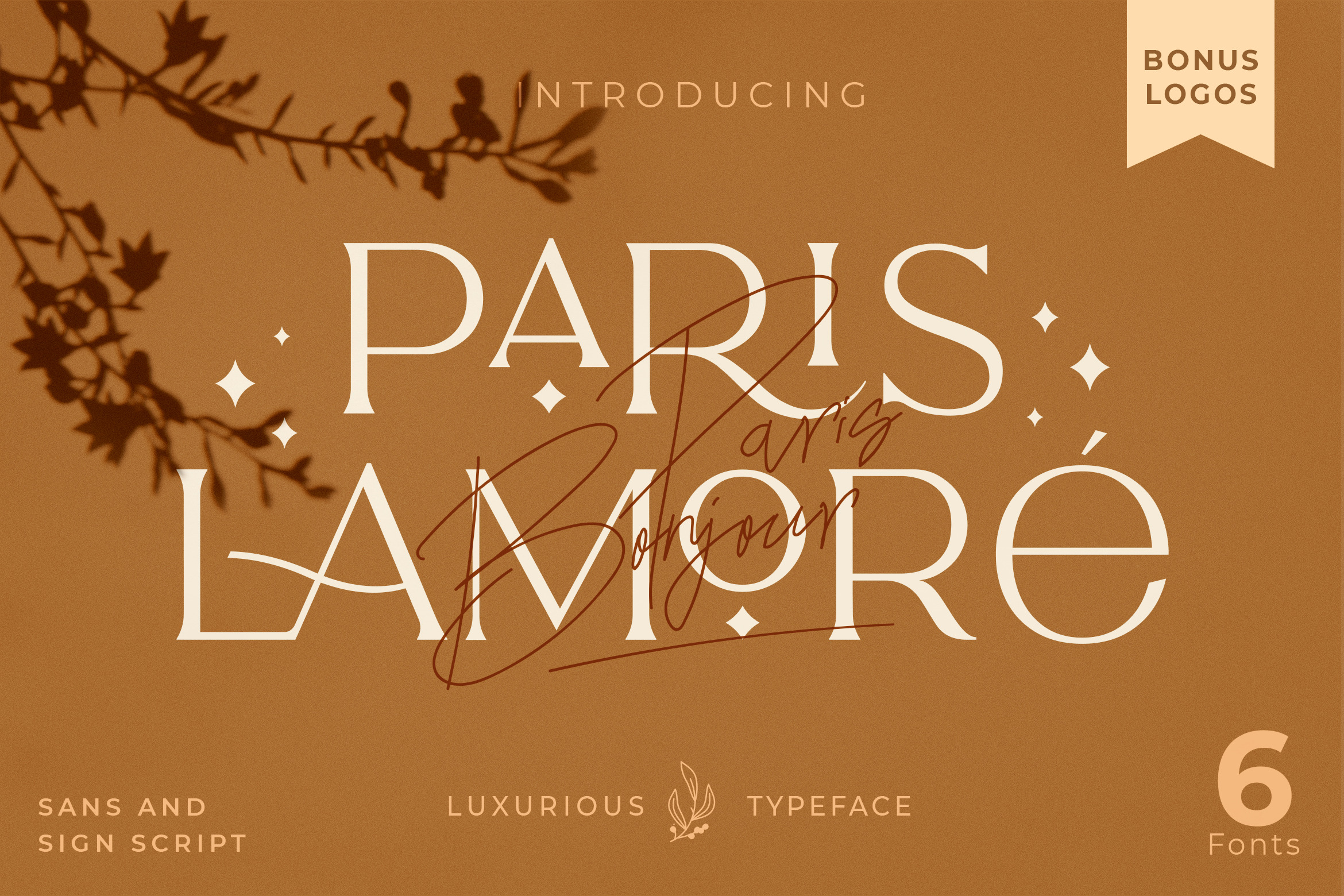
The Paris Lamore Duo Typeface + LOGO
The Lamore Sans & Script Collection is a Minimalist Modern Elegant font with Signature script font. Full of beautiful ligatures, tons of special alternative glyphs, ornament and multilingual support. It's a very versatile font that works great in large and small sizes. Lamore font is perfect for branding projects, Logo design, Clothing Branding, product packaging, magazine headers, or simply as a stylish text overlay to any background image.
6 Weights font
BONUS LOGOS AND ICONS
Sans and Signature Script font
All caps
Stylistic Alternates & Ligatures
Accented characters
Multiple Languages Supported